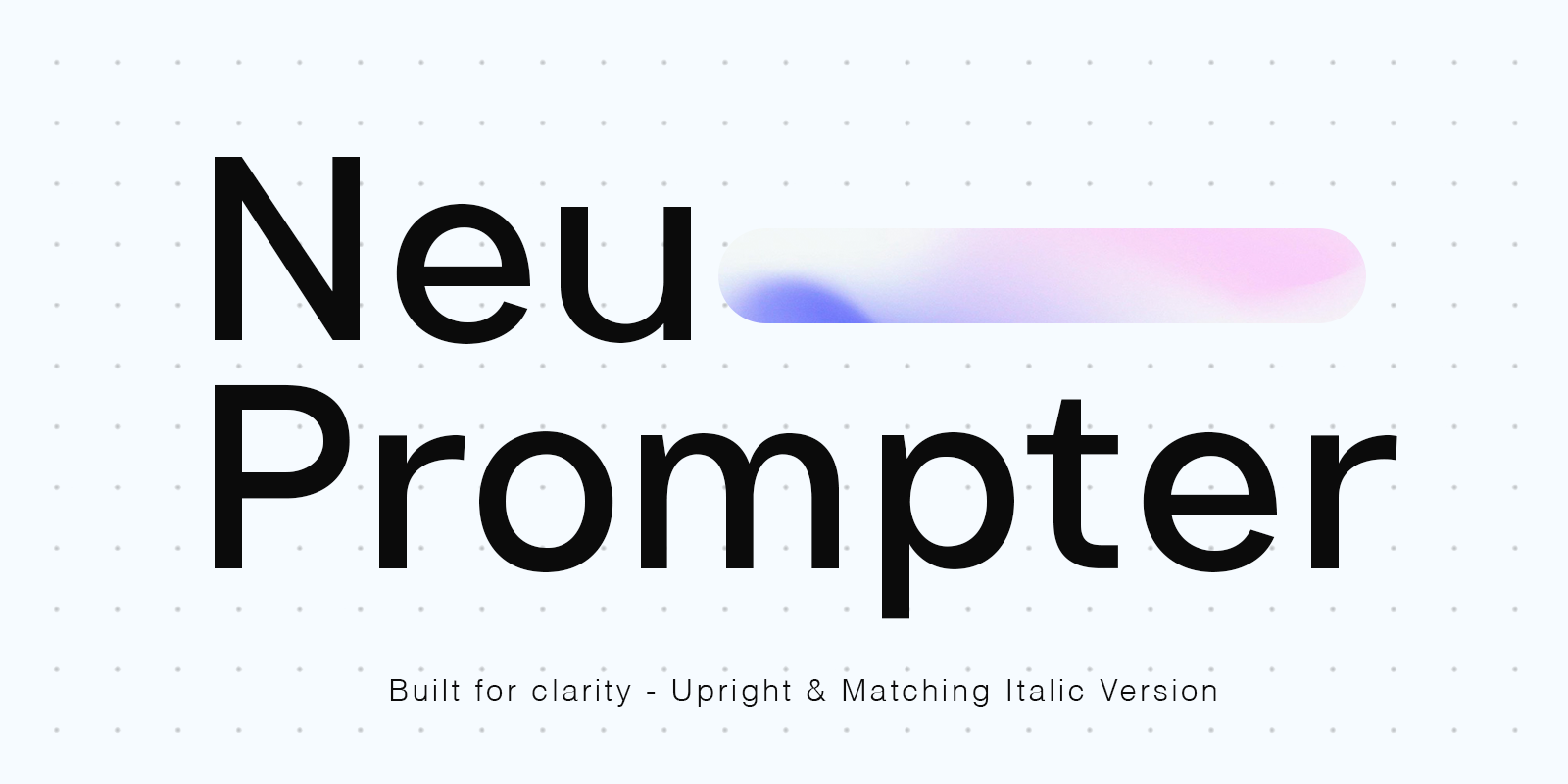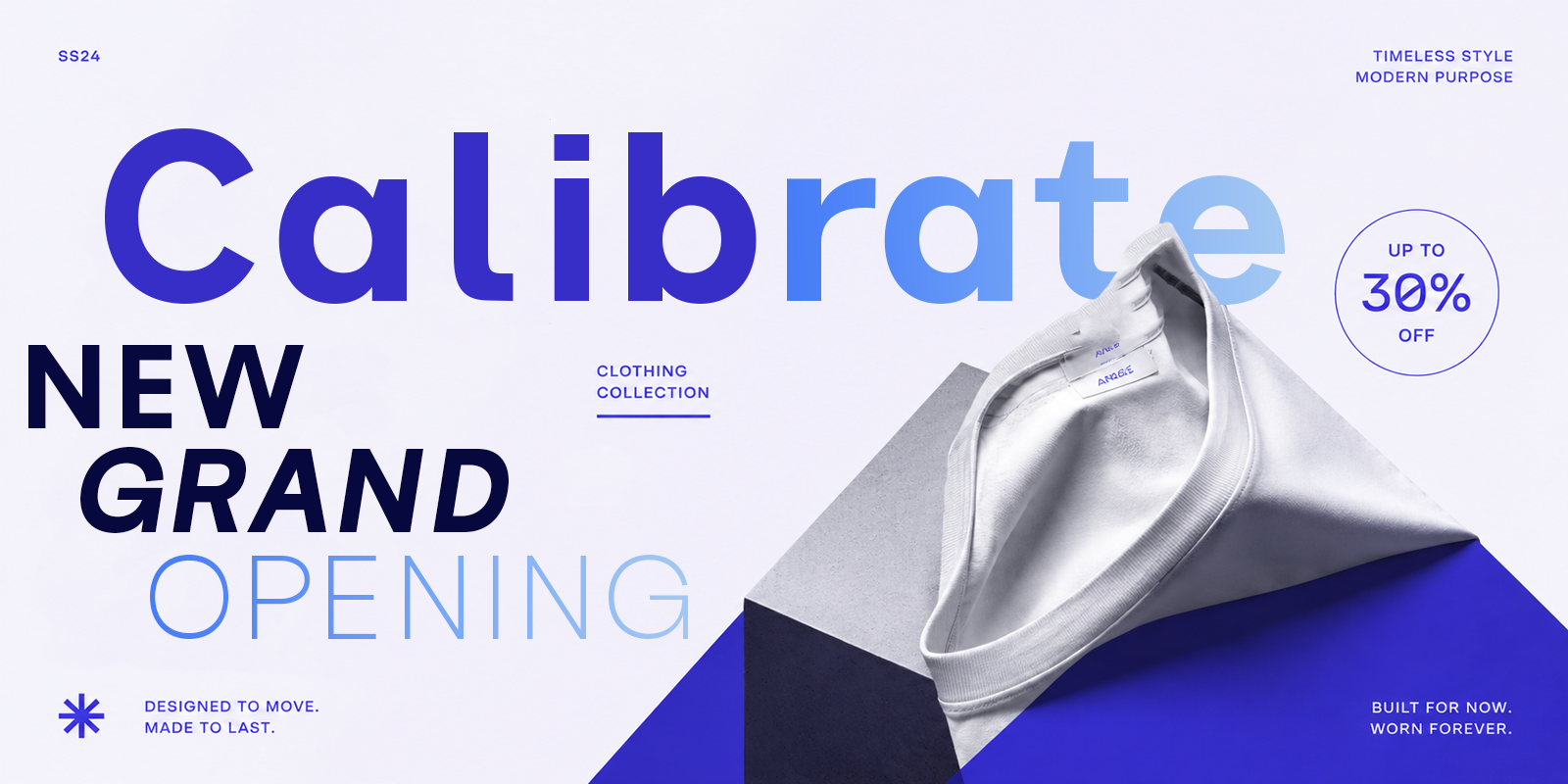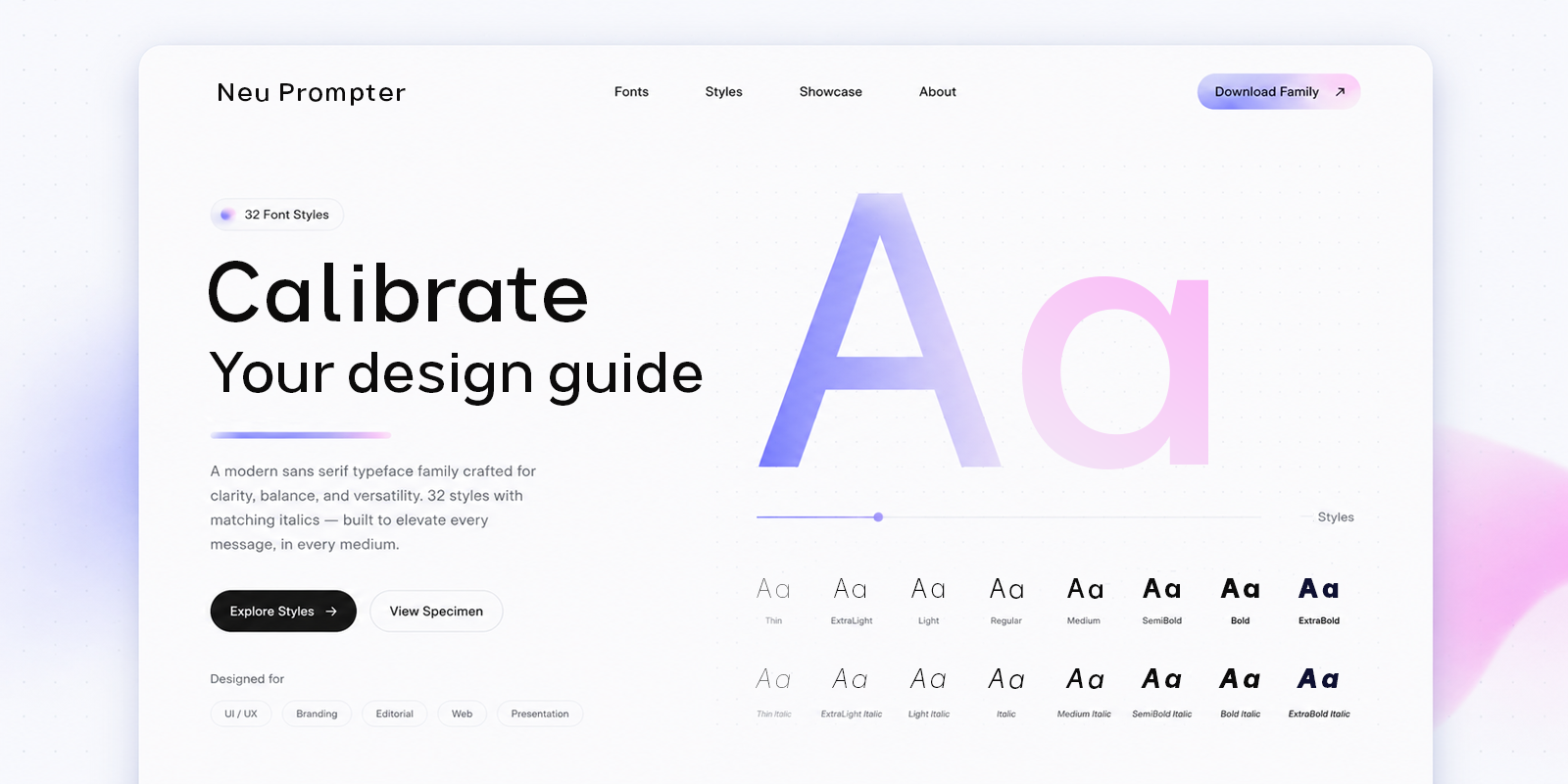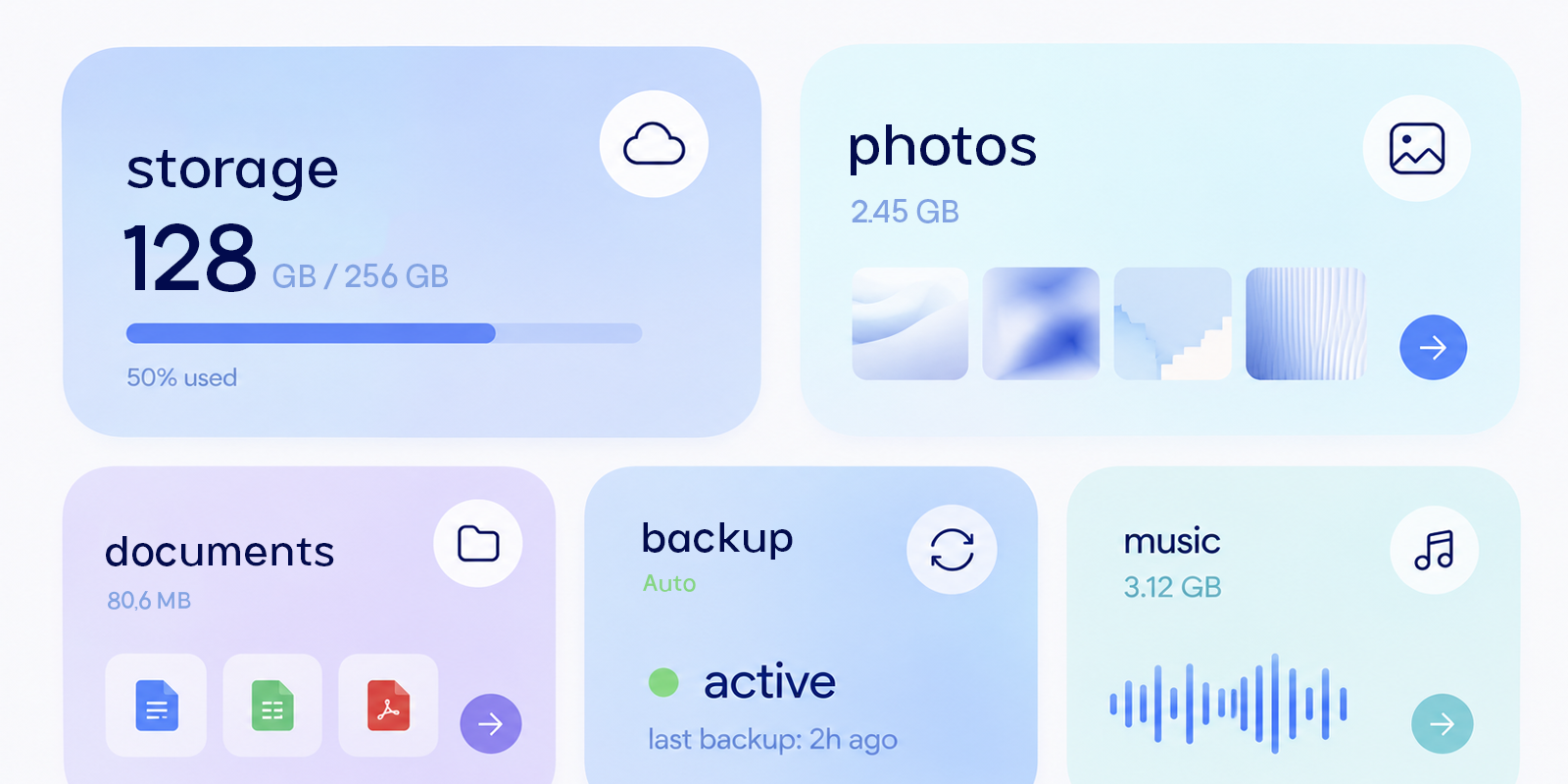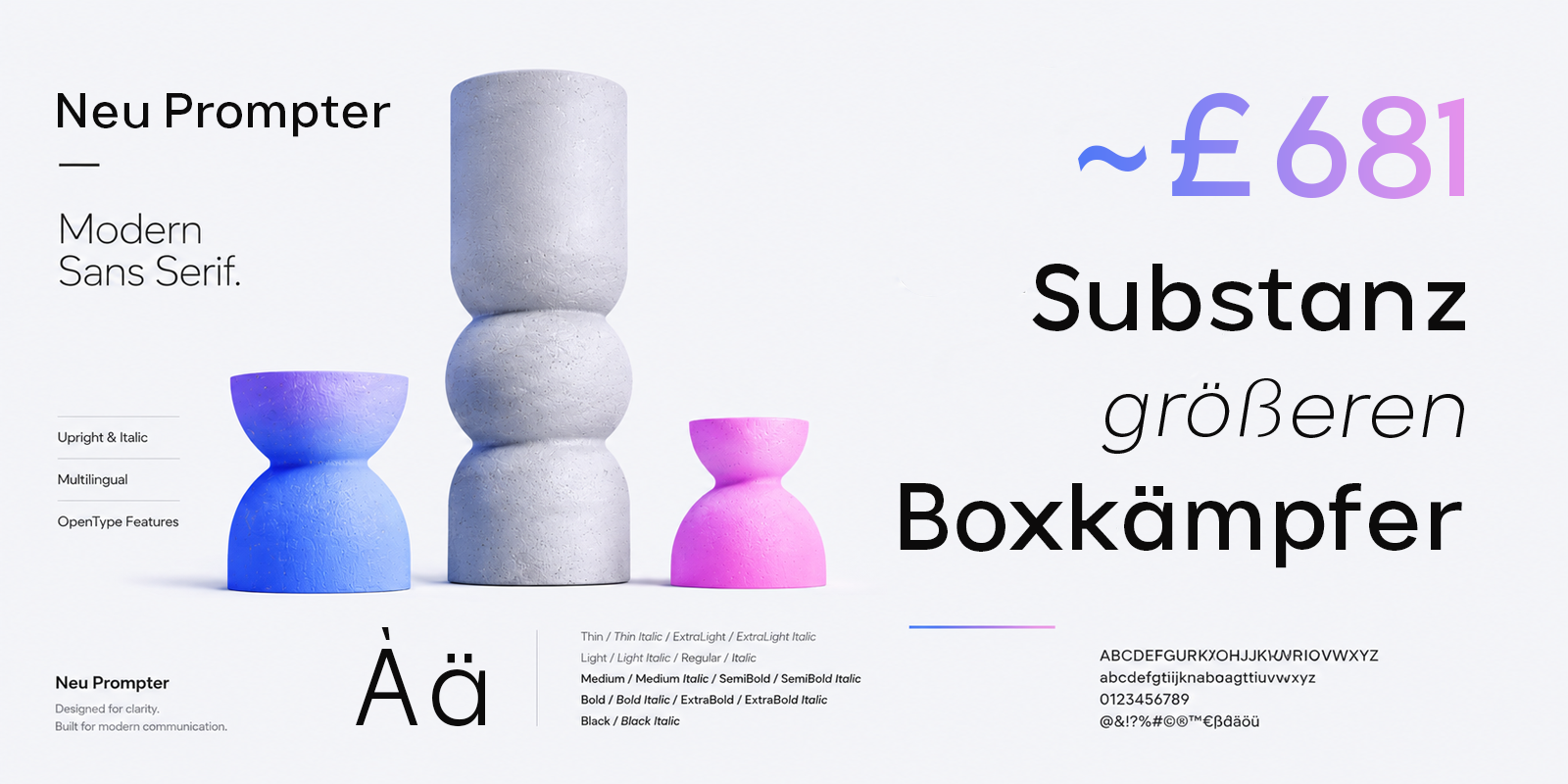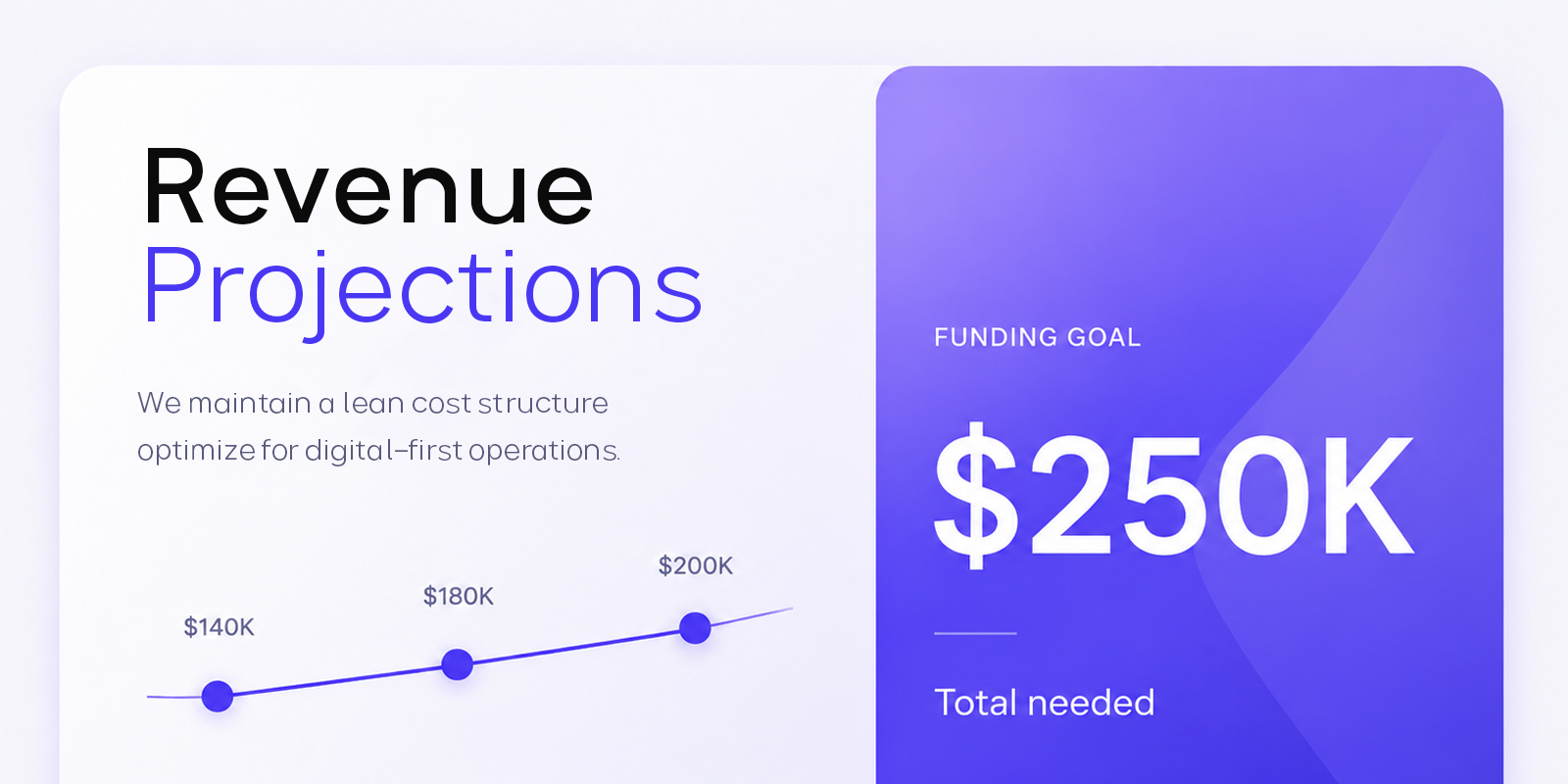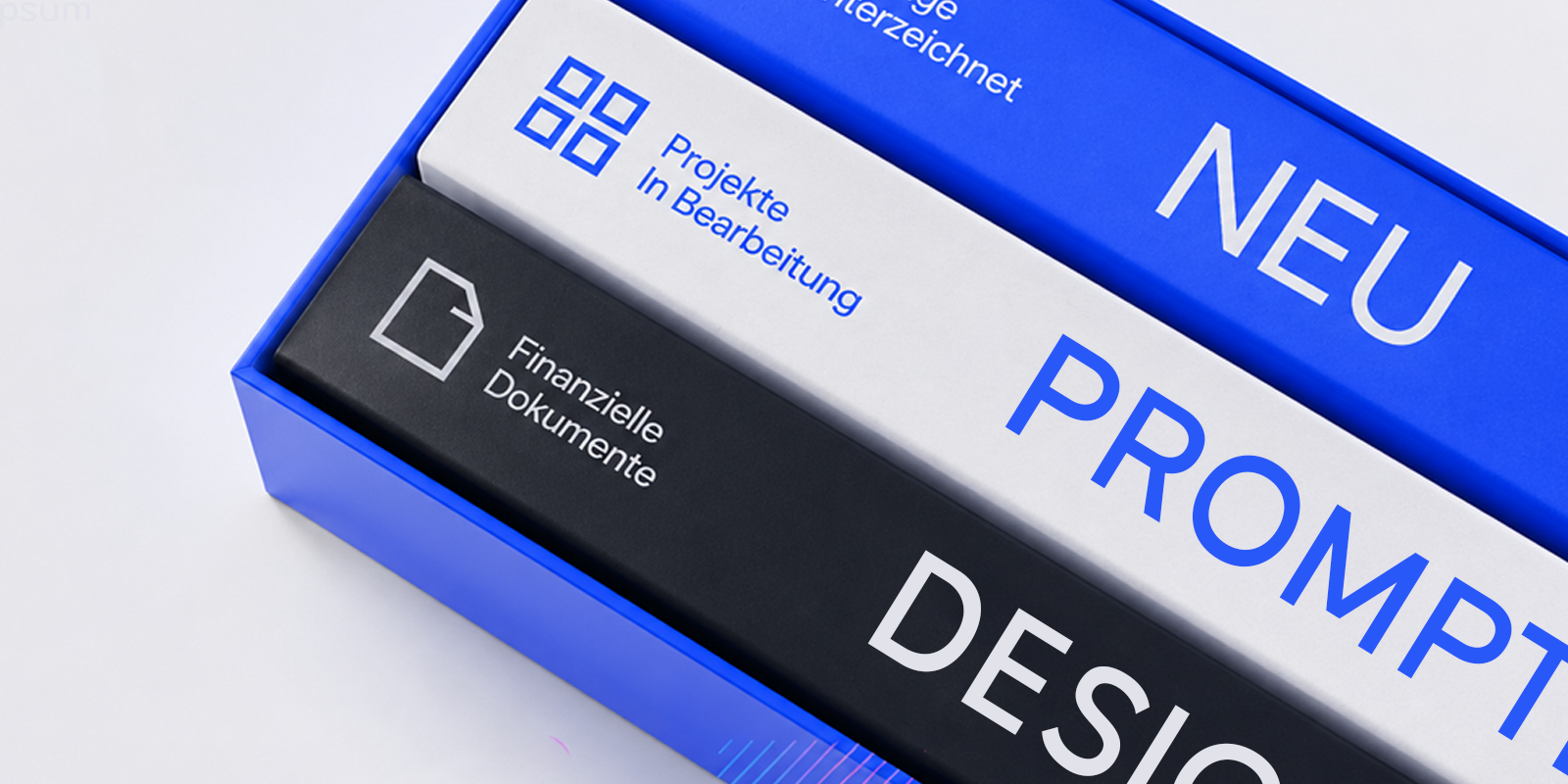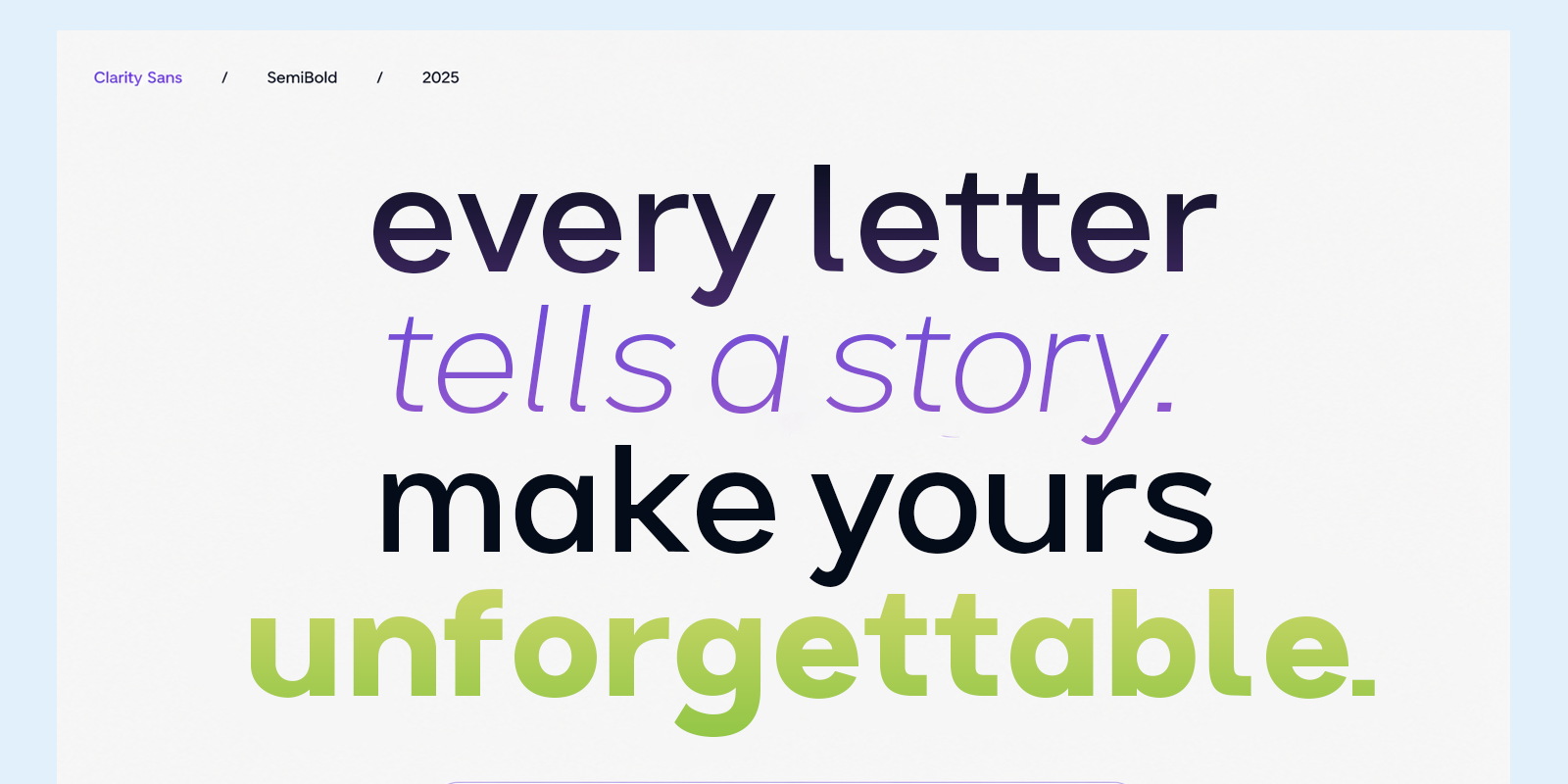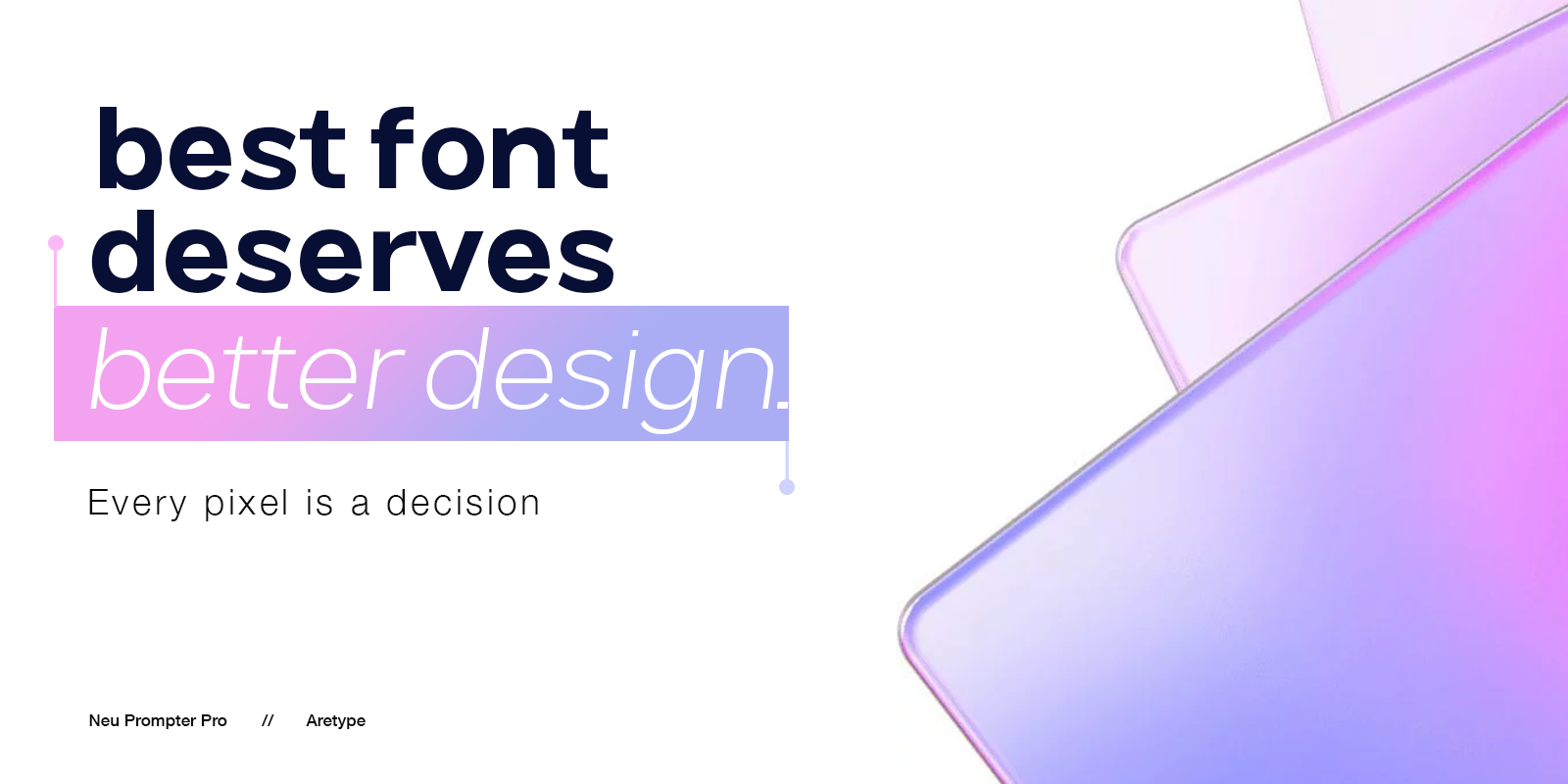
Neu Prompter
Premium Typeface Family
About Neu Prompter
Neu Prompter is a modern, clean sans-serif typeface meticulously engineered for ultimate legibility. With its sharp, minimalist aesthetic, it is "built for clarity" and comes in both Upright and Matching Italic versions. It's the perfect choice for tech branding, UI/UX design, and sleek, contemporary layouts.
• 18 weights with italics
• True small caps
• Extended latin support
• OpenType features
• Optimized for screens